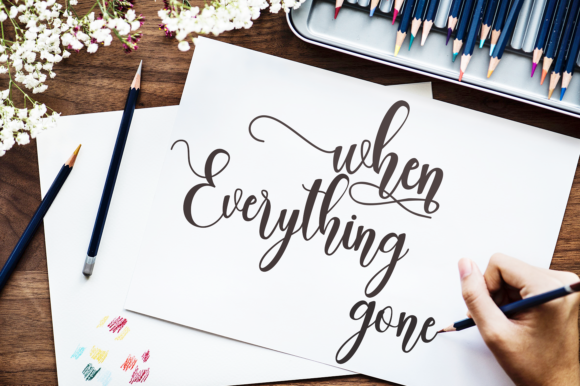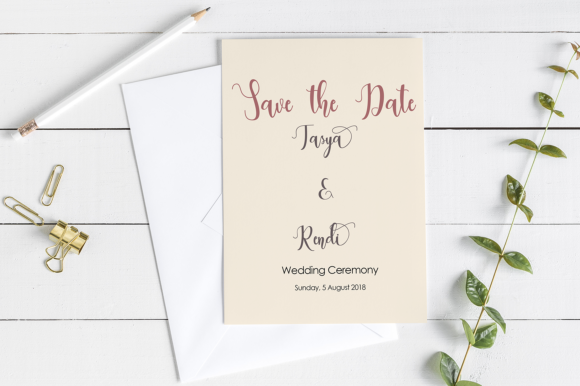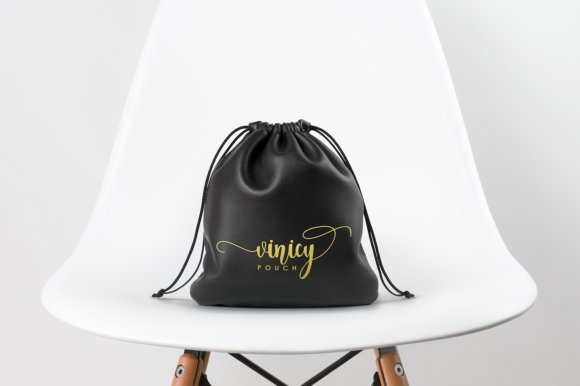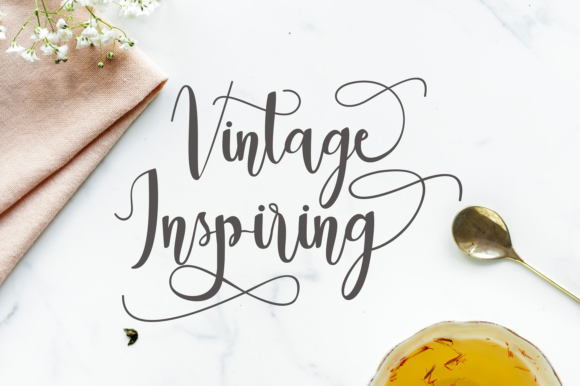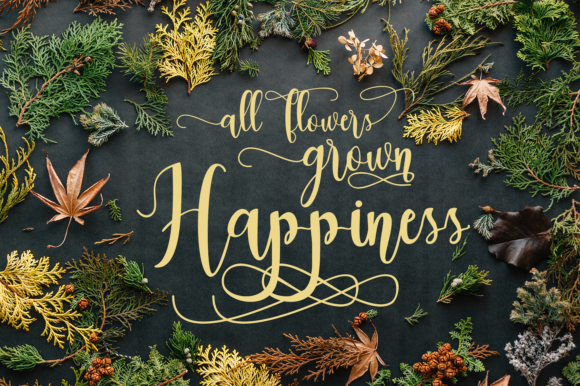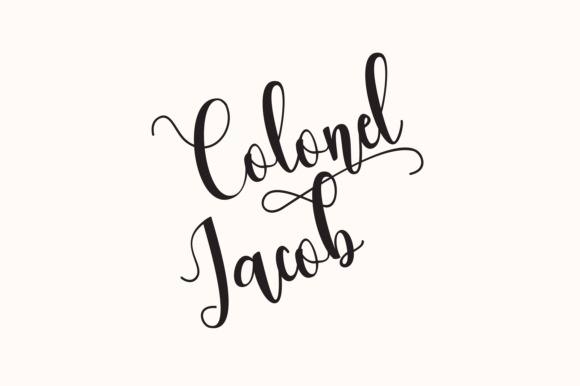
Introducing Dealove Script Font: The Sweet Calligraphy Typeface for Stunning Designs
Are you looking for a beautiful and elegant script font to elevate your designs? Look no further than Dealove Script Font! This sweet calligraphy typeface is perfect for creating stunning lettering, and its simplicity makes it easy to use for designers of all levels. In this article, we’ll explore the features and benefits of Dealove Script Font, and how it can be used to create amazing designs for various projects.
What is Dealove Script Font?
Dealove Script Font is a modern script typeface that is designed to make it easy to create beautiful lettering. With its elegant and flowing lines, Dealove Script Font is perfect for adding a touch of sophistication to any design. Whether you’re a professional designer or a crafty DIY enthusiast, Dealove Script Font is a great choice for creating stunning text-based designs.
Key Features of Dealove Script Font
- Easy to Use: Dealove Script Font is simple to use, even for those with little to no design experience. Just type your words, and you’ll immediately see great results.
- Modern Script Style: Dealove Script Font features a modern script style that is perfect for creating elegant and sophisticated designs.
- Versatile: Dealove Script Font can be used for a wide range of projects, including quotes, blog headers, posters, weddings, branding, and more.
Benefits of Using Dealove Script Font
So, why choose Dealove Script Font for your design projects? Here are just a few benefits of using this amazing script font:
- Adds Elegance to Your Designs: Dealove Script Font adds a touch of elegance and sophistication to any design, making it perfect for projects where you want to make a lasting impression.
- Saves Time: With Dealove Script Font, you can create beautiful lettering in no time. Its ease of use means you can focus on other aspects of your design, rather than struggling with complicated fonts.
- Perfect for Various Projects: Dealove Script Font is versatile and can be used for a wide range of projects, from wedding designs to blog headers, and more.
Project Ideas Using Dealove Script Font
So, what can you create with Dealove Script Font? Here are some project ideas to get you started:
- Quotes: Use Dealove Script Font to create stunning quote graphics that are perfect for social media, blogs, or even printing and framing.
- Blog Headers: Add a touch of elegance to your blog headers with Dealove Script Font. It’s perfect for creating eye-catching titles that draw readers in.
- Posters: Create beautiful posters for events, promotions, or even just for fun using Dealove Script Font.
- Weddings: Dealove Script Font is perfect for wedding designs, including invitations, programs, and more.
- Branding: Use Dealove Script Font to create a cohesive brand identity that stands out from the crowd.
Tips for Using Dealove Script Font
Here are some tips for getting the most out of Dealove Script Font:
- Experiment with Colors: Dealove Script Font looks great in a variety of colors, so don’t be afraid to experiment and find the perfect hue for your design.
- Play with Sizes: Dealove Script Font can be used in a range of sizes, from small and delicate to large and bold.
- Mix and Match: Try pairing Dealove Script Font with other fonts or graphics to create a unique and eye-catching design.
| Font Name | Dealove Script Font |
| Author | Analogous |
In conclusion, Dealove Script Font is a beautiful and elegant script font that is perfect for creating stunning designs. Its ease of use, modern script style, and versatility make it a great choice for designers and crafters of all levels. Whether you’re looking to create quotes, blog headers, posters, wedding designs, or branding materials, Dealove Script Font is the perfect choice. So why wait? Download Dealove Script Font today and start creating amazing designs!